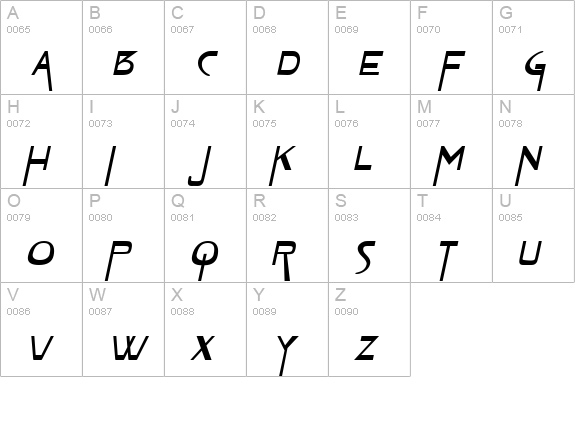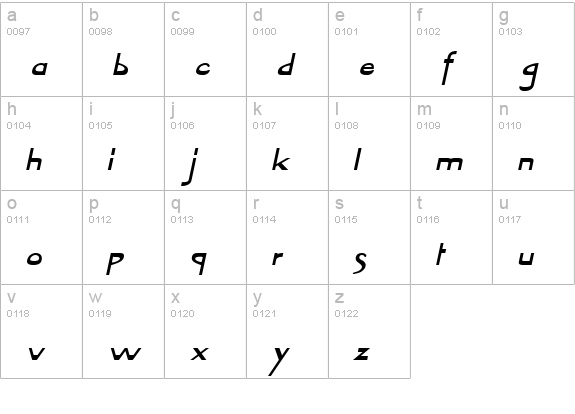
TabletExtended Bold Italic is a strong, high-contrast, italic variant in the TabletExtended typeface family \xE2\x80\x94 well suited to headlines, attention-grabbing titles, and strong calls-to-action.
Introducing TabletExtended Bold Italic font, a striking and dynamic typeface that effortlessly combines boldness and elegance. With its distinctive and eye-catching design, this font is perfect for making a bold statement in any project. TabletExtended Bold Italic font exudes a sense of confidence and sophistication, making it ideal for various creative endeavors. Whether you're designing a captivating logo, crafting attention-grabbing headlines, or creating visually stunning graphics, this font will add a touch of uniqueness and flair. What sets TabletExtended Bold Italic font apart is not only its stunning aesthetics but also its versatility. It seamlessly adapts to different design styles and can be used across a wide range of applications. From print materials such as posters, brochures, and packaging to digital platforms like websites and social media, this font will elevate your designs to new heights. The best part? TabletExtended Bold Italic font is available for free download at FontsMarket.com. Yes, you read that right – you can enjoy this exceptional font without spending a dime. FontsMarket.com is a trusted source for high-quality fonts, and they generously offer this font as a gift to designers and creatives worldwide. So why wait? Take your design projects to the next level with TabletExtended Bold Italic font. Download it for free at FontsMarket.com and unlock a world of possibilities. Let your creativity soar and make a lasting impression with this stunning and versatile typeface.